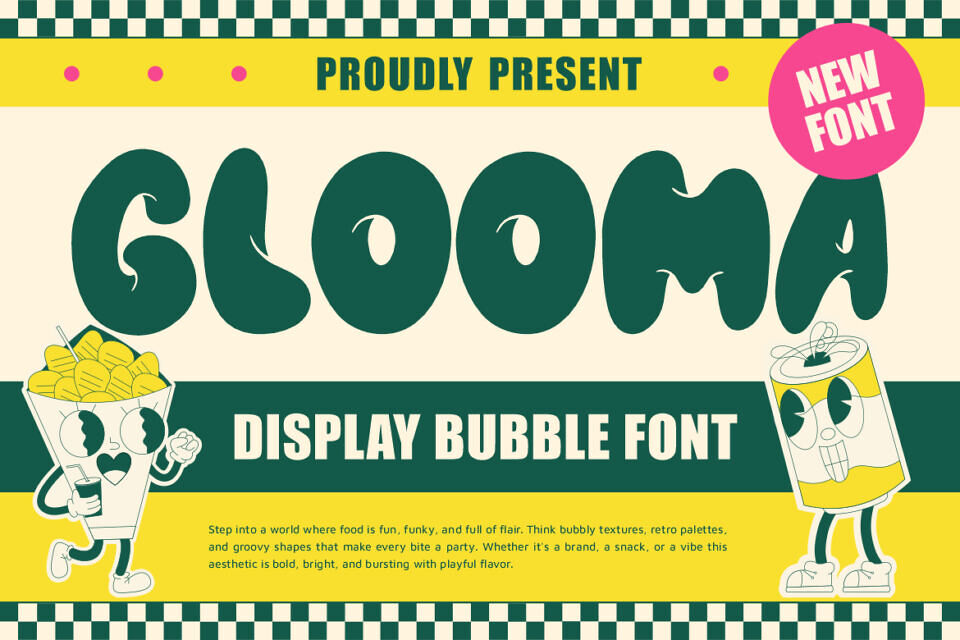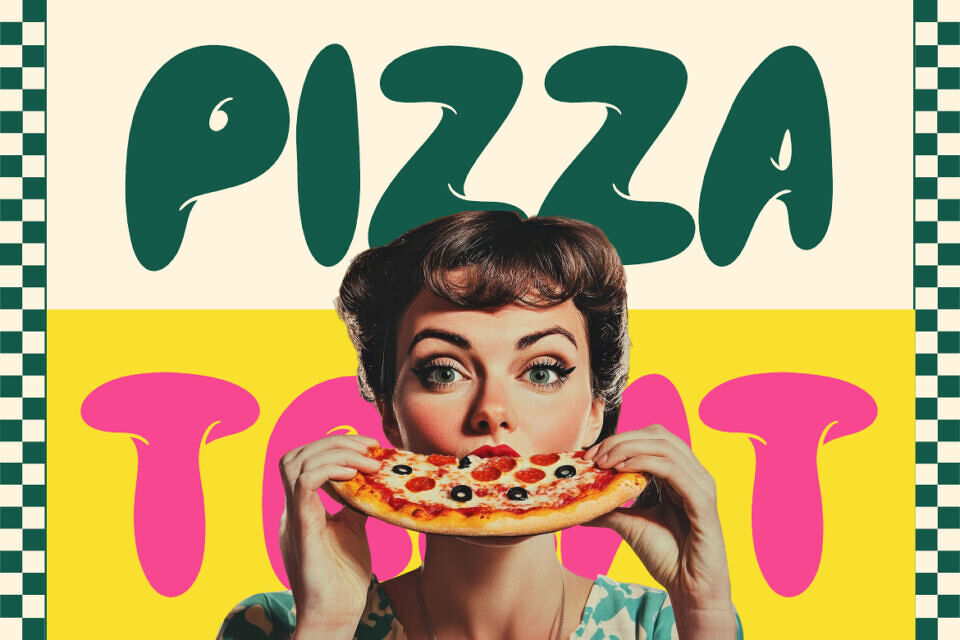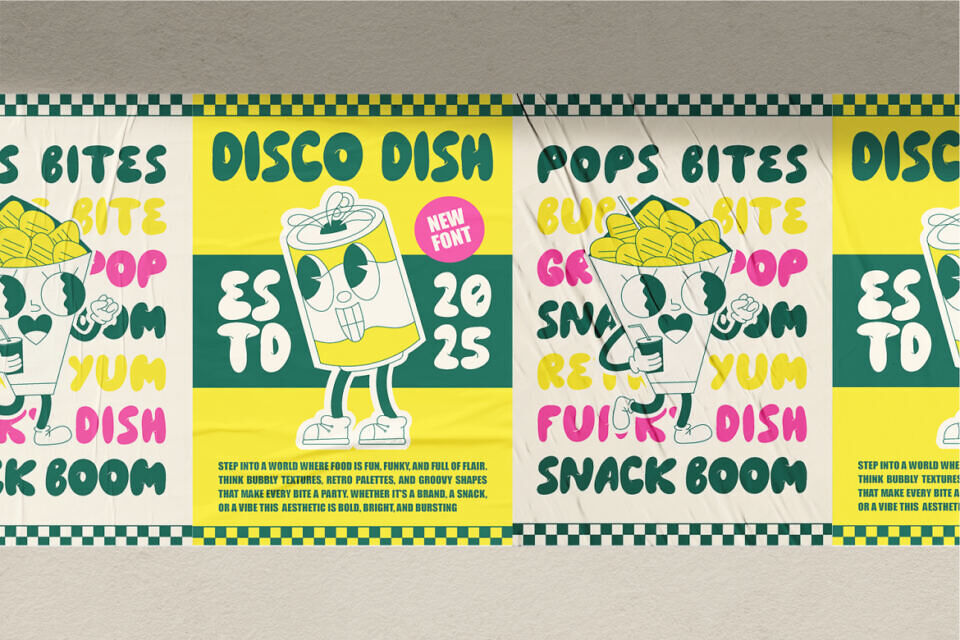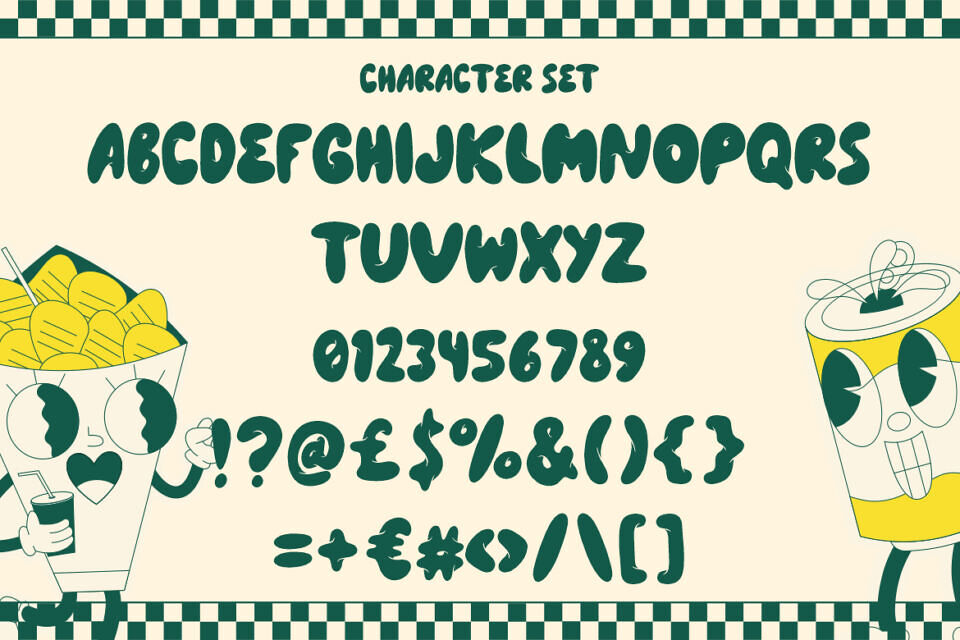
Glooma Display Bubble Font brings a playful burst of energy to your creative projects. Its bubbly, rounded shapes combine retro grooves with modern boldness, making every word feel fun and full of character. Inspired by pop culture, food packaging, and groovy aesthetics, this font instantly grabs attention while keeping a lighthearted mood.
The smooth curves and chunky strokes make it highly readable, even at larger sizes, ideal for catchy headlines, bold posters, or funky product packaging. Its cheerful look turns ordinary designs into joyful statements that radiate personality.